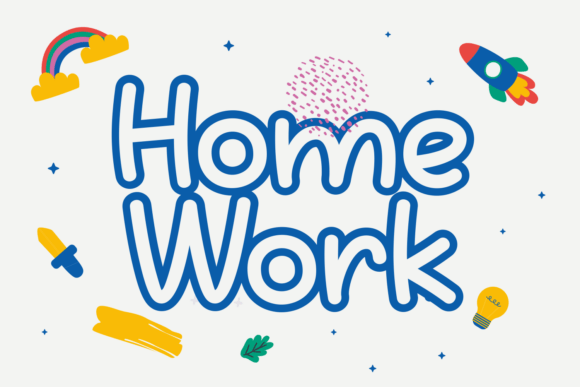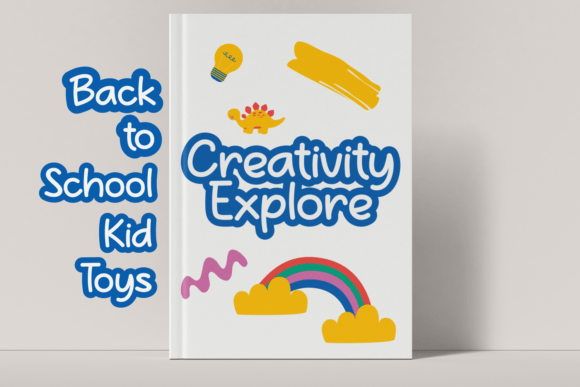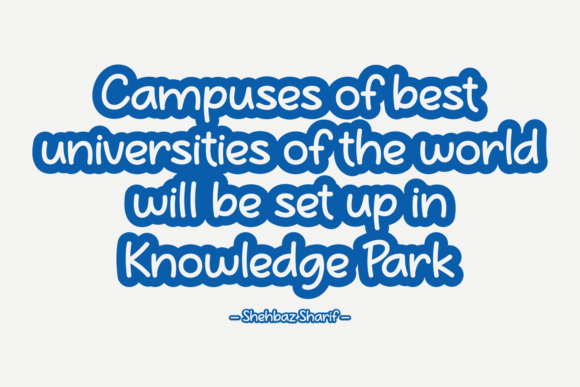
Introduction to Park Story Font
Park Story is a playful, rounded display font that radiates friendliness and creativity.
Its smooth curves and consistent stroke weight give it a casual, handwritten charm while maintaining clarity and readability The slightly wide letter spacing allows each character to breathe, making it perfect for kid-friendly designs, educational materials, and fun branding.
Key Features of Park Story Font
Why Choose Park Story Font?